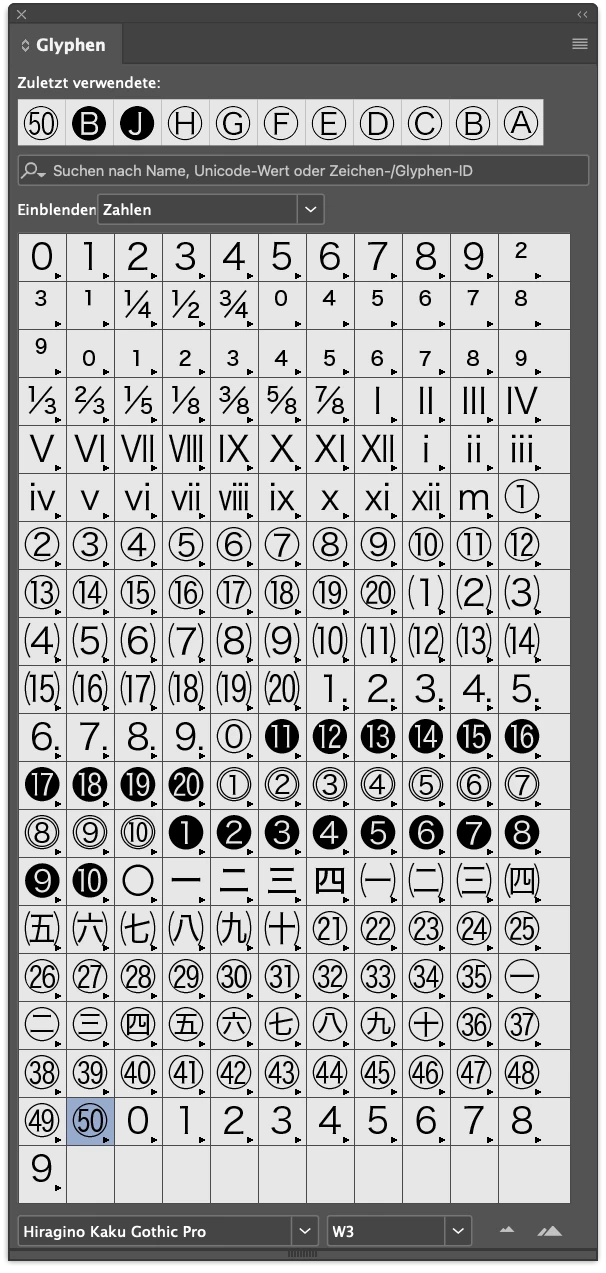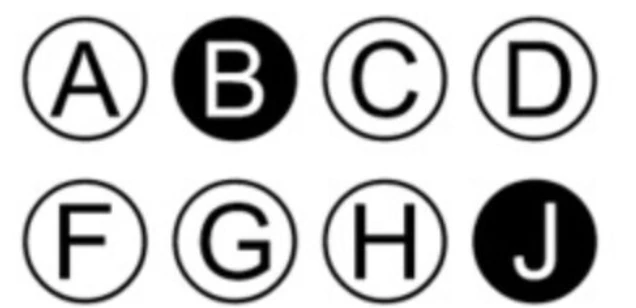
Bubble Font
Can anyone recommend an Open Type Font for lettered and numbered lists? When Postscript was still an option, I would use Circle Frame MT or Bundasbahn. I think some people refer to them as 'OMR bubble fonts'.
Have a look at Japanese fonts  …
E.g. this one from MacOS:
I don't know how they fare with InDesign's numbered lists, though.
There's a way to do it with any font
Does this suit your needs or do you require a font itself?
Thank you, Eugene! I am going to try that method and see if I can make it work with double-digit numerals. I may have to use a nested style, rather than bullets and numbering.